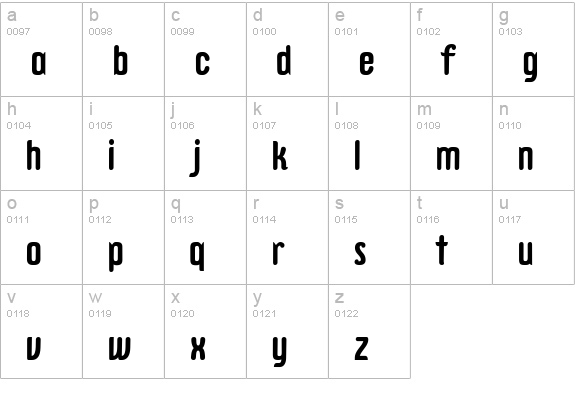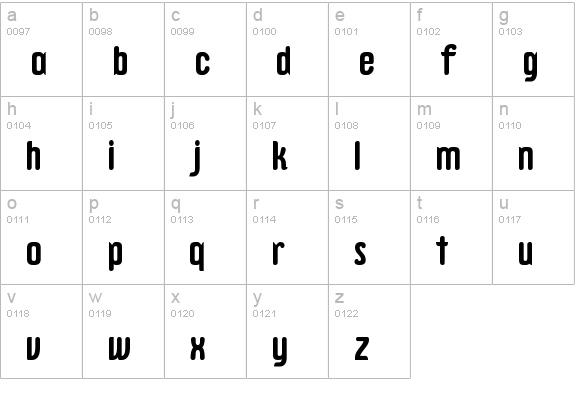
Epitough Font Details
Introducing Epitough font, a powerful and versatile typeface that is sure to make a lasting impression. With its bold and edgy design, Epitough stands out from the crowd, commanding attention and leaving a lasting impact. This unique font is perfect for a wide range of creative projects, from eye-catching logos and branding, to captivating headlines and attention-grabbing posters. Its strong and confident letterforms exude a sense of authority and strength, making it the perfect choice for projects that require a bold and commanding presence. But what truly sets Epitough font apart is its versatility. Whether you're going for a modern and sleek look or a vintage and retro aesthetic, Epitough can effortlessly adapt to suit your needs. Its clean lines and balanced proportions make it a versatile and adaptable choice for any project. And the best part? Epitough font is free! That's right, this stunning typeface is available to download for free at FontsMarket.com. Now you can elevate your designs without breaking the bank. Simply visit FontsMarket.com and get your hands on this incredible font for free. So why wait? Take your designs to the next level with Epitough font. Whether you're a professional designer or a casual hobbyist, this font is sure to become your go-to choice for creating impactful and memorable designs. Download it today and unlock the unlimited possibilities that Epitough font has to offer.